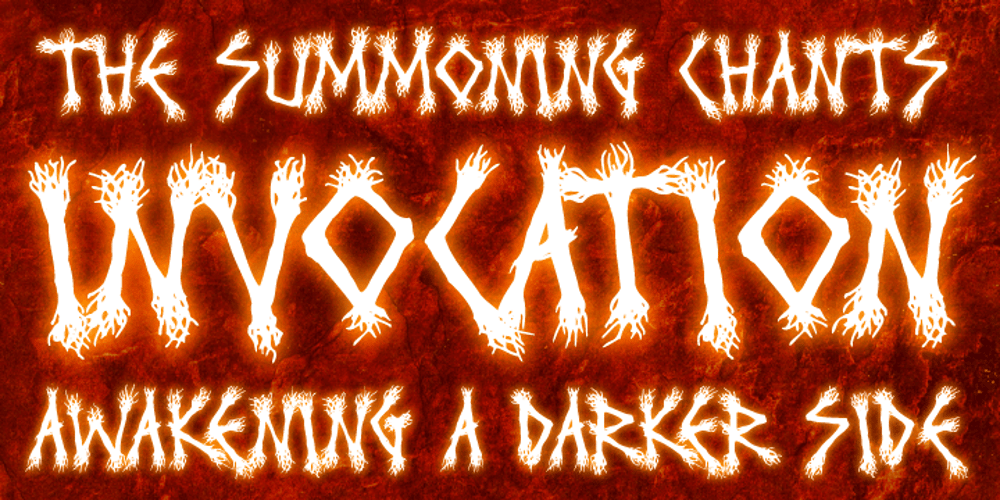
Invocation AOE
Invocation AOE font
Invocation AOE Font Family was designed by Brian J. Bonislawsky and published by Astigmatic. Invocation AOE contains 1 styles and family package options. Made from a simple font incantation, the Invocation typeface was born. Inspired by an old Atari game called Necromancer where trees uprooted and came after the wizard, or something like that. The end result, a thematic typeface spawning roots. On darkened night, the moon eclipsed, a cryptic verse does pass my lips, from ancient parchment, edges worn, this Invoctation font is born… Sometimes we need an evil look for our designs, so why not summon this typeface into your hands today!